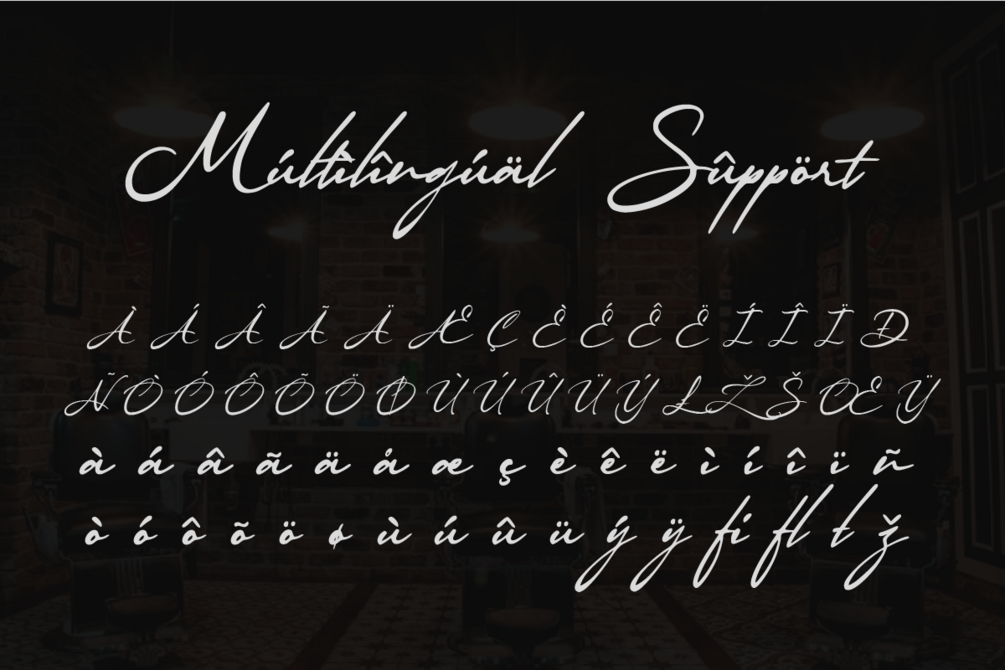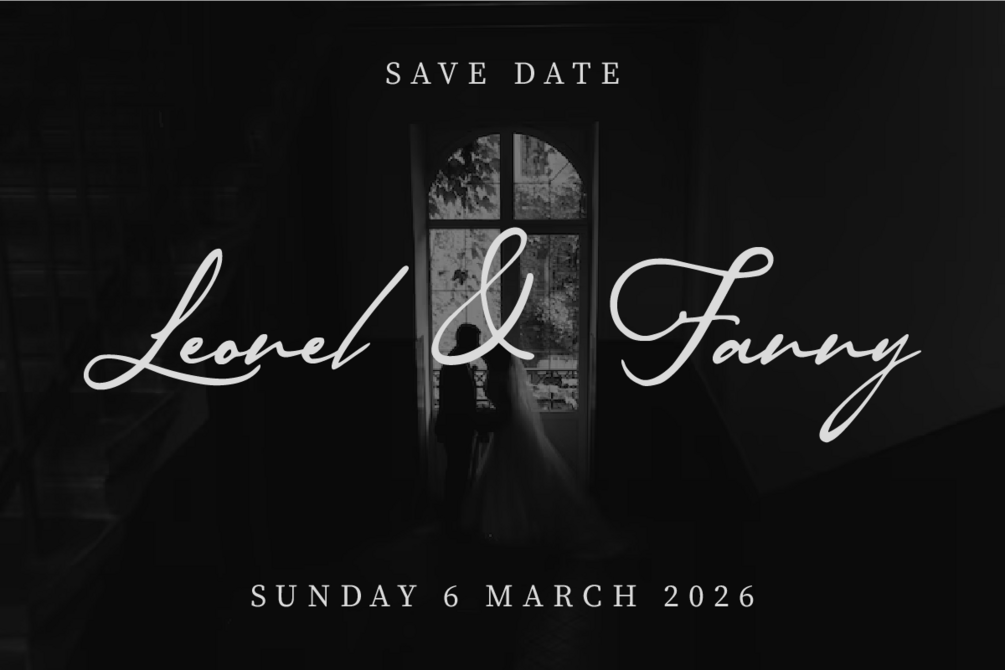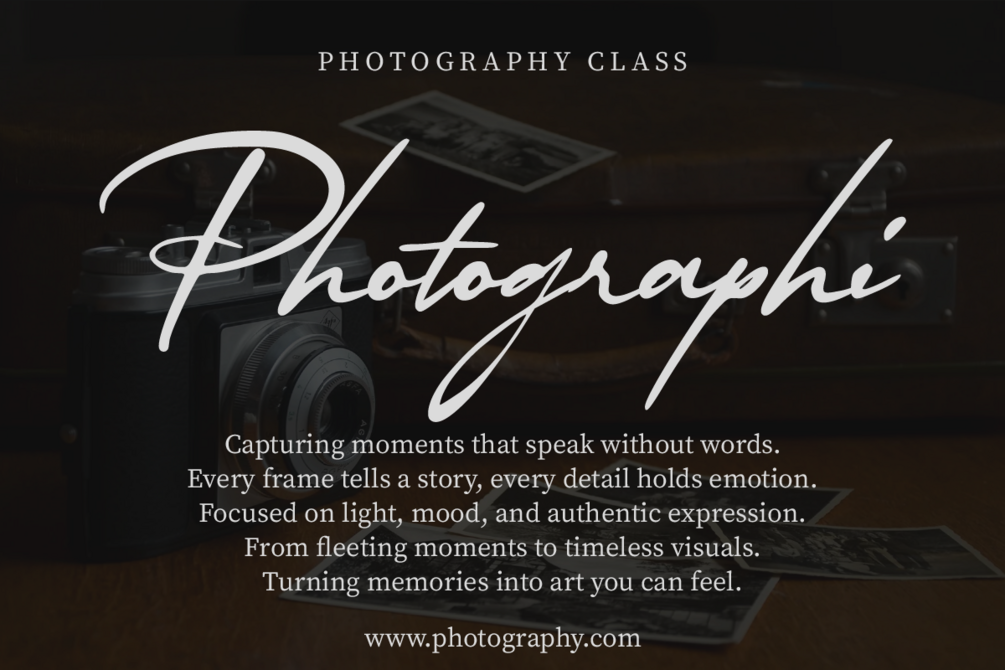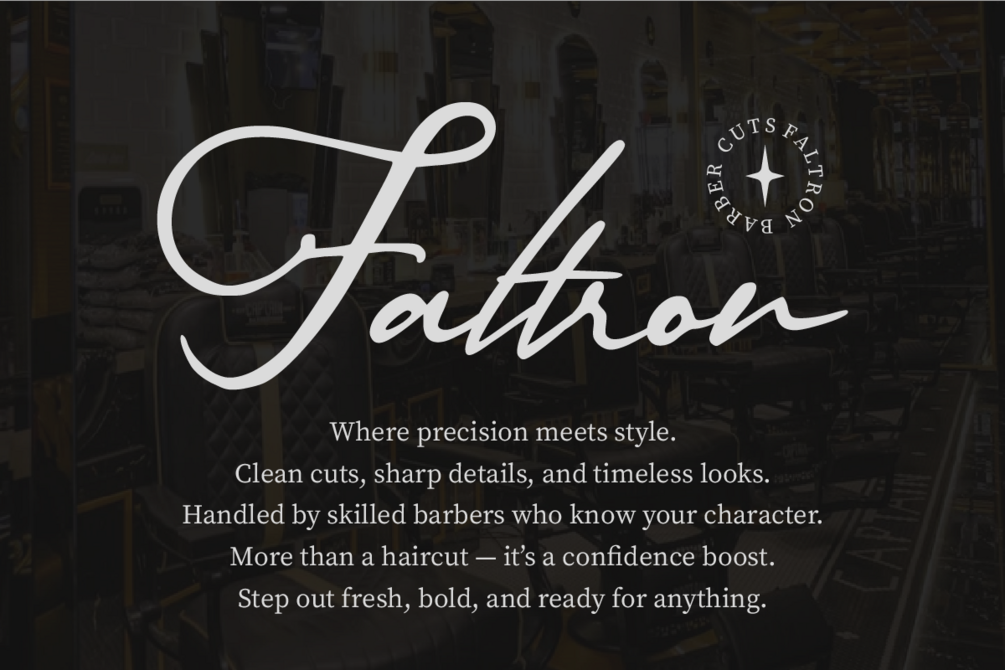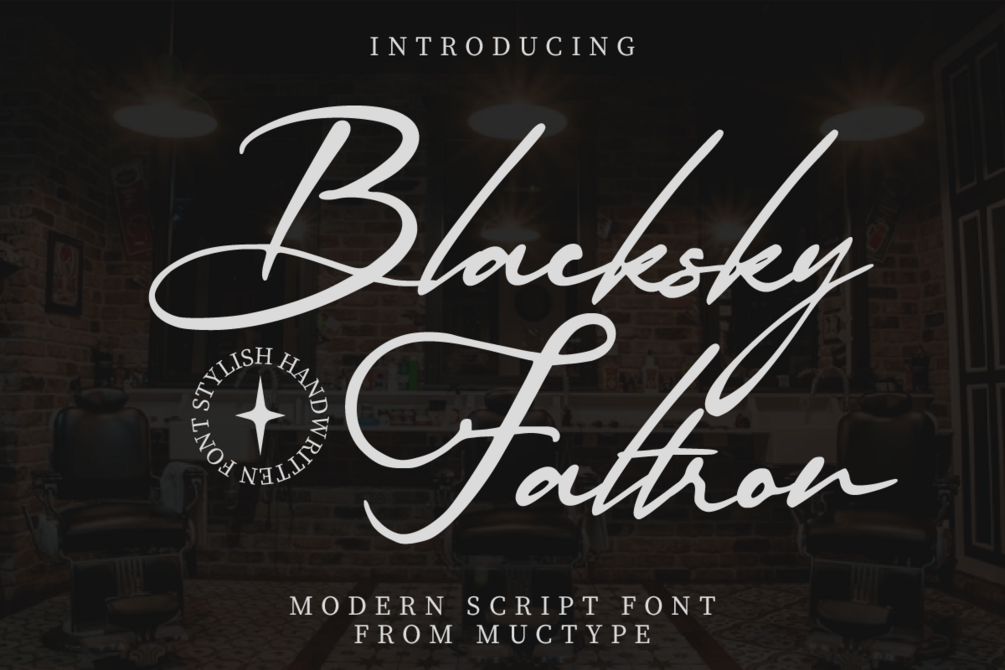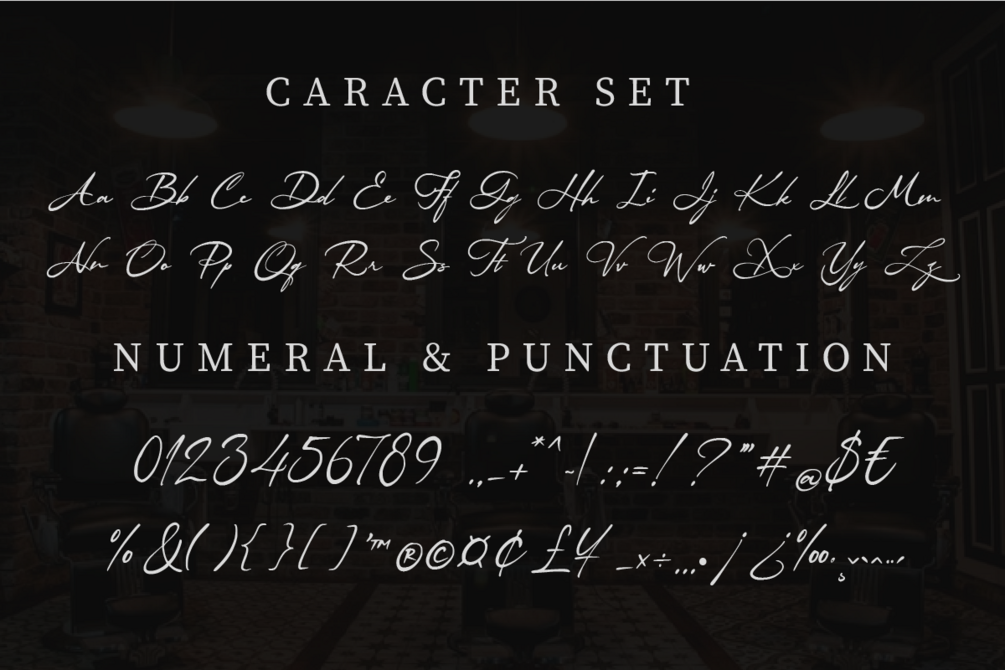
Blacksky Faltron – Modern Stylish Script Font
Blacksky Faltron is a modern stylish handwritten script font with elegant strokes and smooth flow. Designed to feel classy yet natural, this font delivers a strong and expressive look for premium creative projects.
Perfect for logo, branding, poster, headline, fashion design, photography, packaging, social media, and luxury display text.
– Uppercase, Lowercase, Numerals & Punctuation
– Multilingual Support